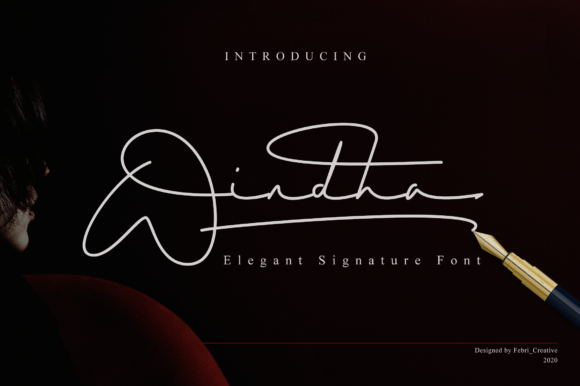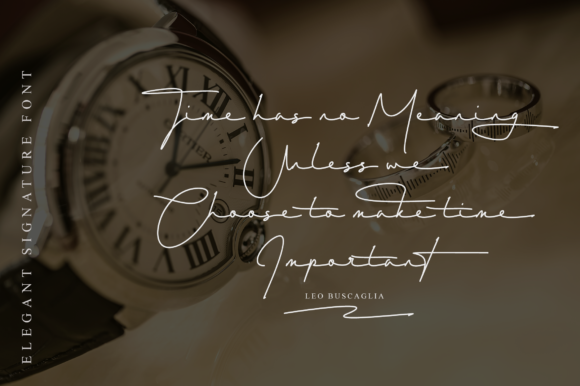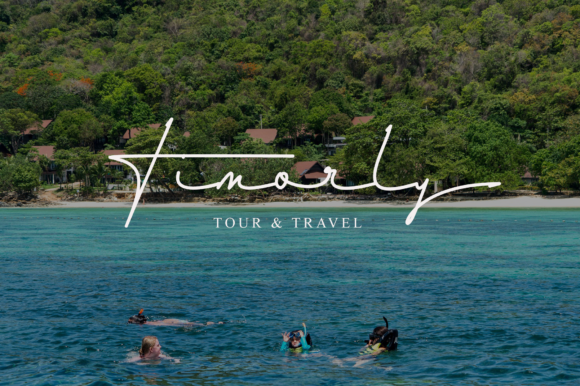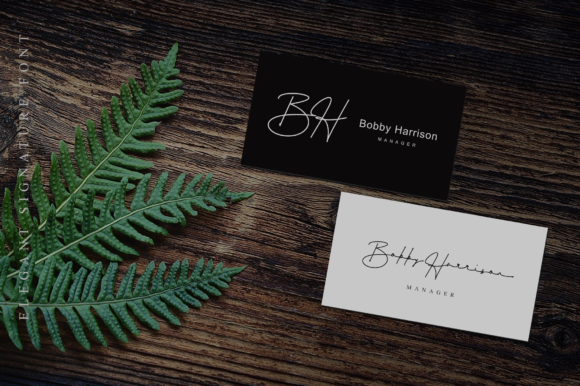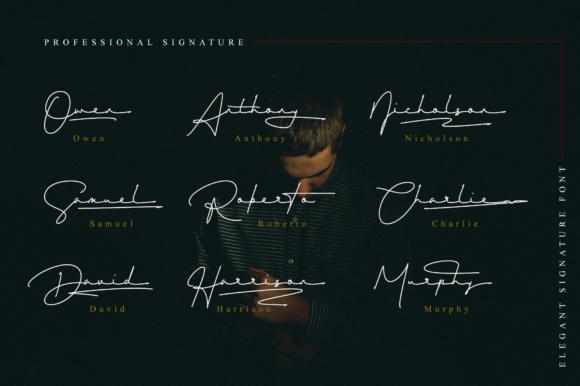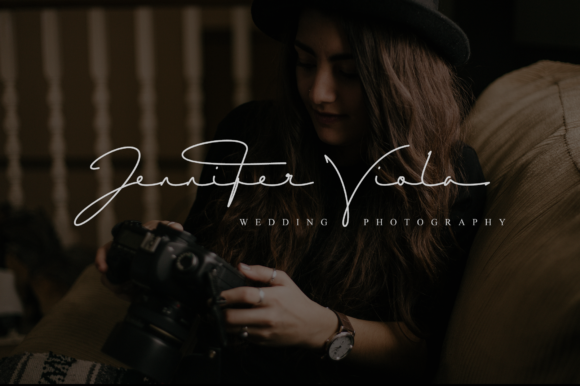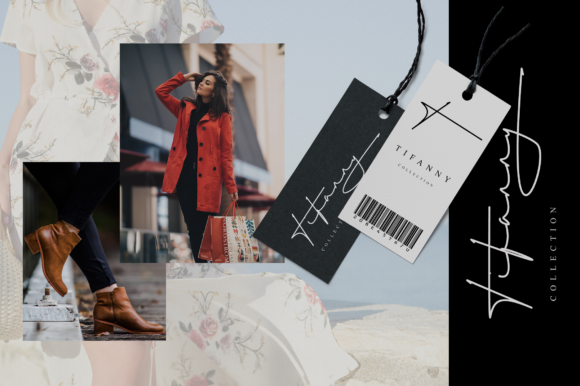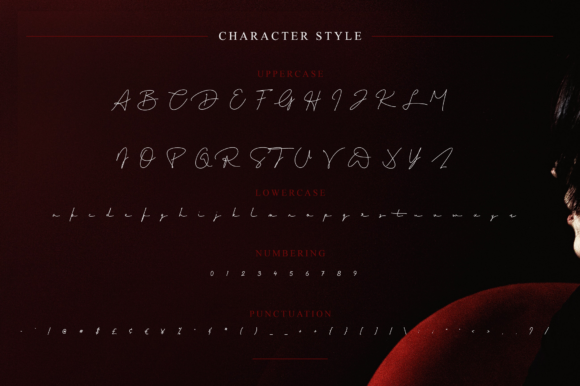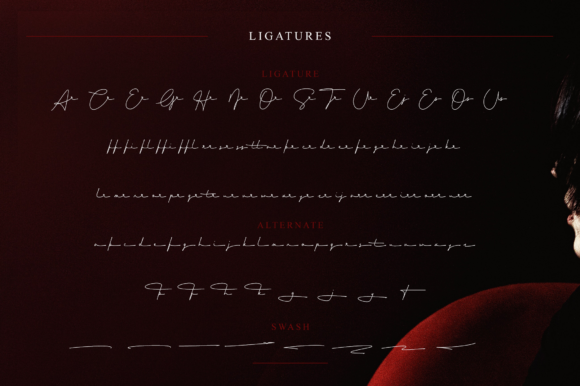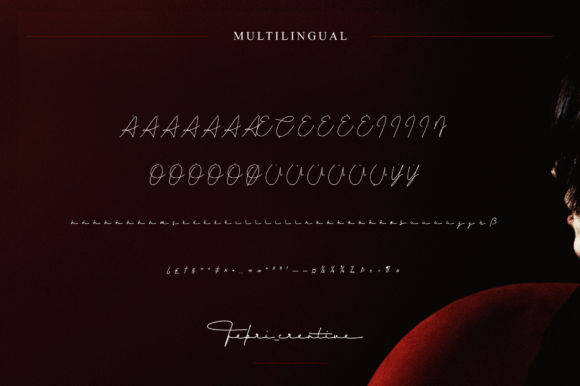
Windha Font
About Windha Font
Windha is a modern and awesome script font with extraordinary charm. It is perfectly suited for a wide variety of projects!